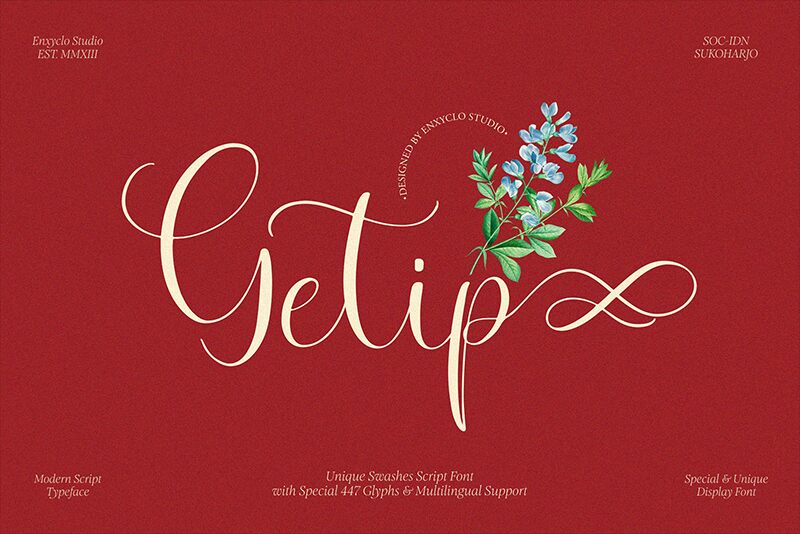
NCL Getip font is a free, handwritten typeface by Enxyclo Studio. Carefully designed to capture the natural elegance of handwriting, it offers an ornate and artistic touch that brings a personal feel to any text. Expressive and luxurious, flowing handwriting adds a light and sophisticated decorative touch to your typography. This classic yet stylish ornate each letter without being overwhelming.
NCL Getip font is excellent for a see-through energetic touch for formal usage. Its romantic and humanistic feel fits sophisticated branding, poster design, packaging, and book/album covers. Formal headers and titles are another great natural way of using such an energetic font. By combining it carefully, strong commercial visuals may be achieved as well.